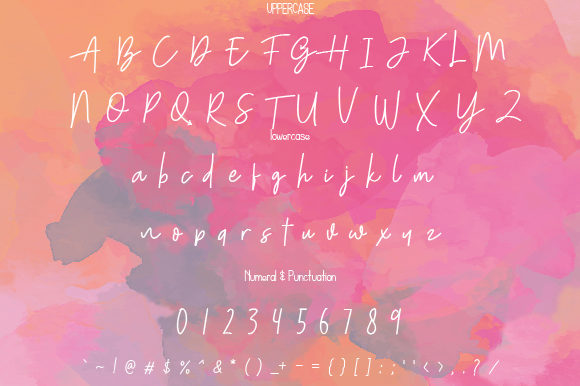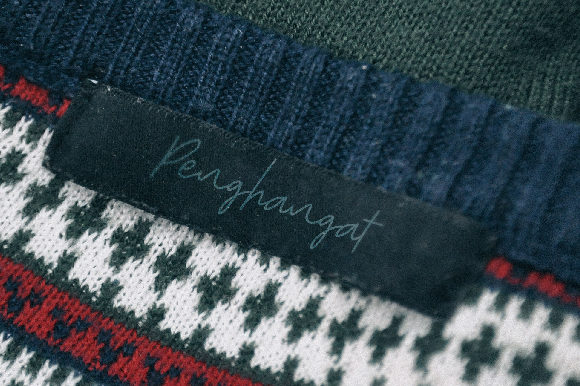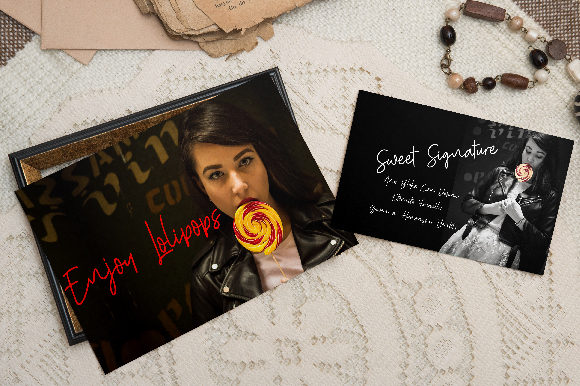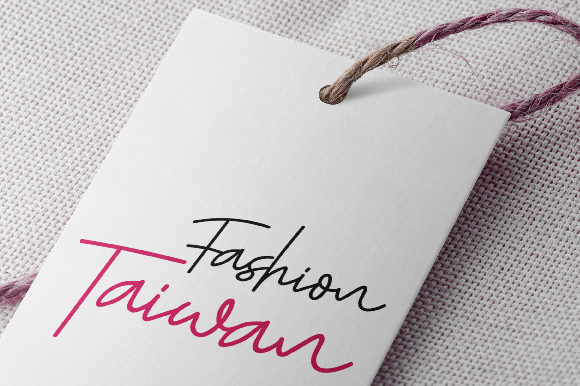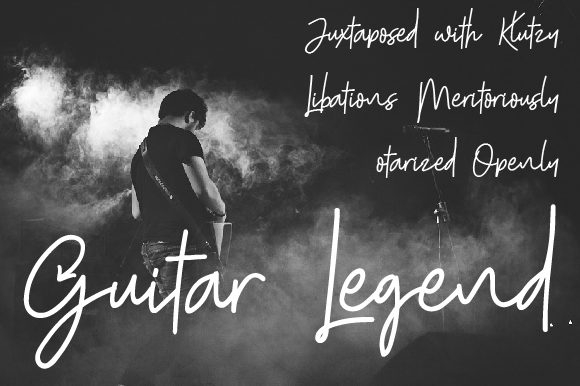
Assalwa Font
About Assalwa Font
The Assalwa is a simple signature font with strong characters. It’s suitable for various designs such as headings, signatures, stationery, logos, wedding invitations, t-shirts, letterheads, signage’s, labels, news, posters, badges, and much more!